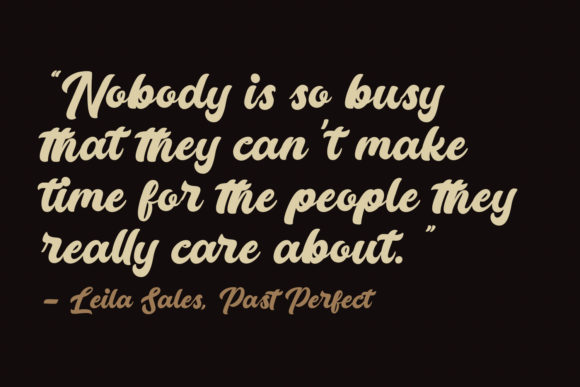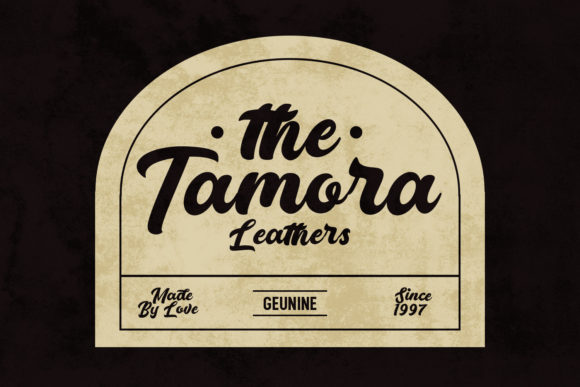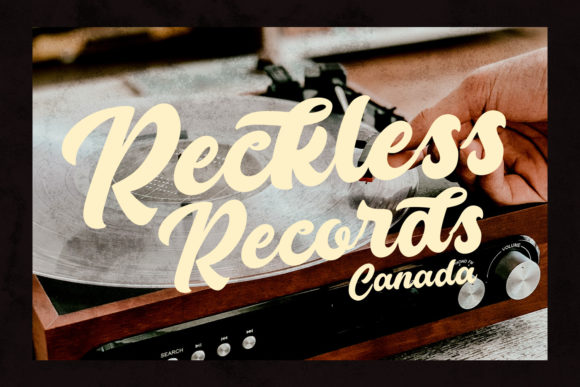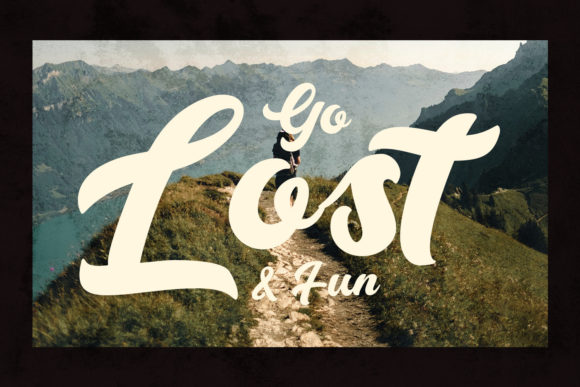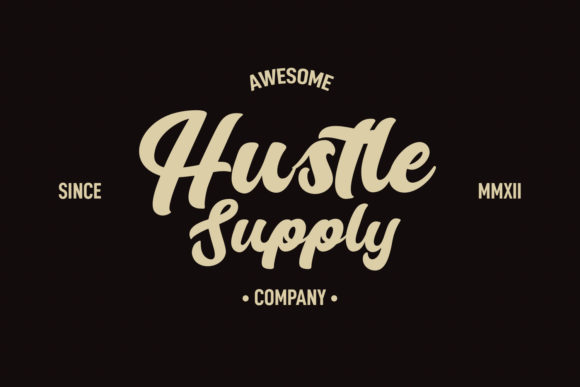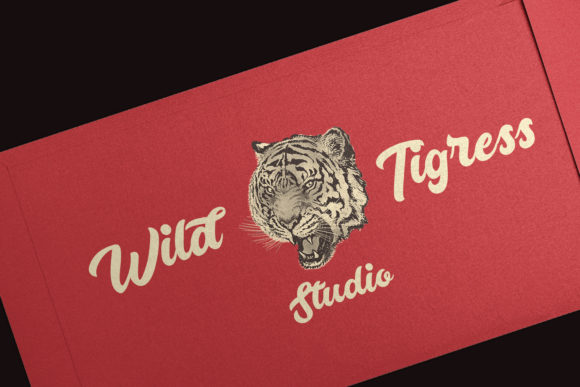
Ginghart Script Font: Elevate Your Designs with a Touch of Retro Elegance
In the world of typography, fonts play a crucial role in conveying the tone and personality of a design. For designers and crafters looking to add a dash of sophistication and whimsy to their projects, the Ginghart Script Font is an excellent choice. This fancy and retro-styled script font is designed to inspire creativity and bring a unique touch to your designs.
What Makes Ginghart Script Font Stand Out?
Ginghart Script Font boasts a distinctive style characterized by medium contrast strokes, fun characters, ligatures, and alternates. This combination of features gives the font its incredibly versatile style, making it suitable for a wide range of design applications. Whether you’re working on a branding project, packaging design, or a digital platform, Ginghart Script Font can help you create spectacular designs that capture attention.
Key Features of Ginghart Script Font
- Medium Contrast Strokes: The font’s medium contrast strokes add a touch of elegance and sophistication, making it perfect for designs that require a level of refinement.
- Fun Characters: Ginghart Script Font includes a range of fun and playful characters that can add a whimsical touch to your designs.
- Ligatures and Alternates: The font features ligatures and alternates, which provide flexibility and allow you to experiment with different styles and combinations.
Design Applications for Ginghart Script Font
The versatility of Ginghart Script Font makes it suitable for various design applications, including:
- Branding and Logo Design: Create unique and memorable logos that reflect your brand’s personality with Ginghart Script Font.
- Packaging Design: Add a touch of elegance and sophistication to your packaging designs with this beautiful script font.
- Digital Platforms: Use Ginghart Script Font to create engaging and visually appealing digital content, such as social media graphics, blog posts, and website headers.
- Stationery and Invitations: Add a touch of whimsy and personality to your stationery and invitations with this beautiful script font.
Tips for Using Ginghart Script Font Effectively
To get the most out of Ginghart Script Font, consider the following tips:
- Experiment with Pairings: Combine Ginghart Script Font with other fonts to create unique and interesting typography combinations.
- Play with Size and Color: Experiment with different font sizes and colors to add visual interest and hierarchy to your designs.
- Use Ligatures and Alternates: Take advantage of the font’s ligatures and alternates to add variety and personality to your designs.
Ginghart Script Font is a beautiful and versatile script font that can elevate your designs with its unique blend of elegance and whimsy. With its medium contrast strokes, fun characters, ligatures, and alternates, this font is perfect for designers and crafters looking to add a touch of sophistication and personality to their projects. Whether you’re working on a branding project, packaging design, or digital platform, Ginghart Script Font is an excellent choice for creating spectacular designs.